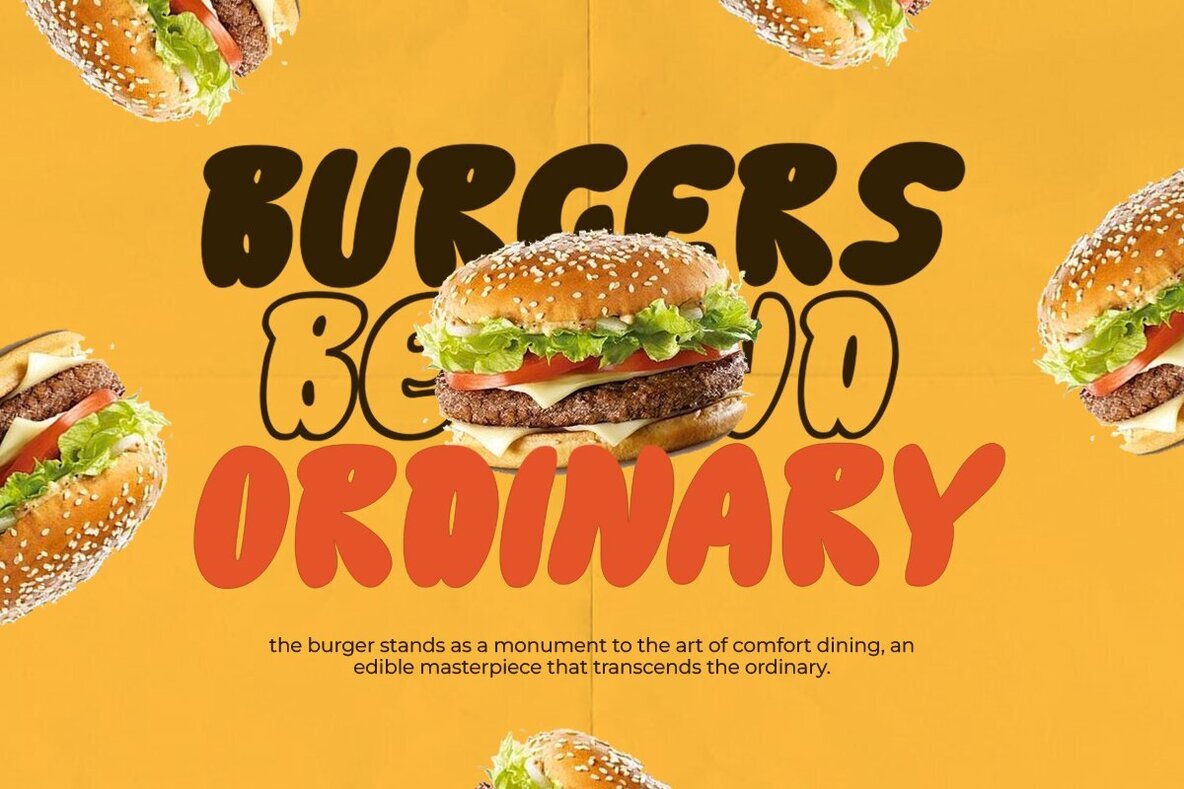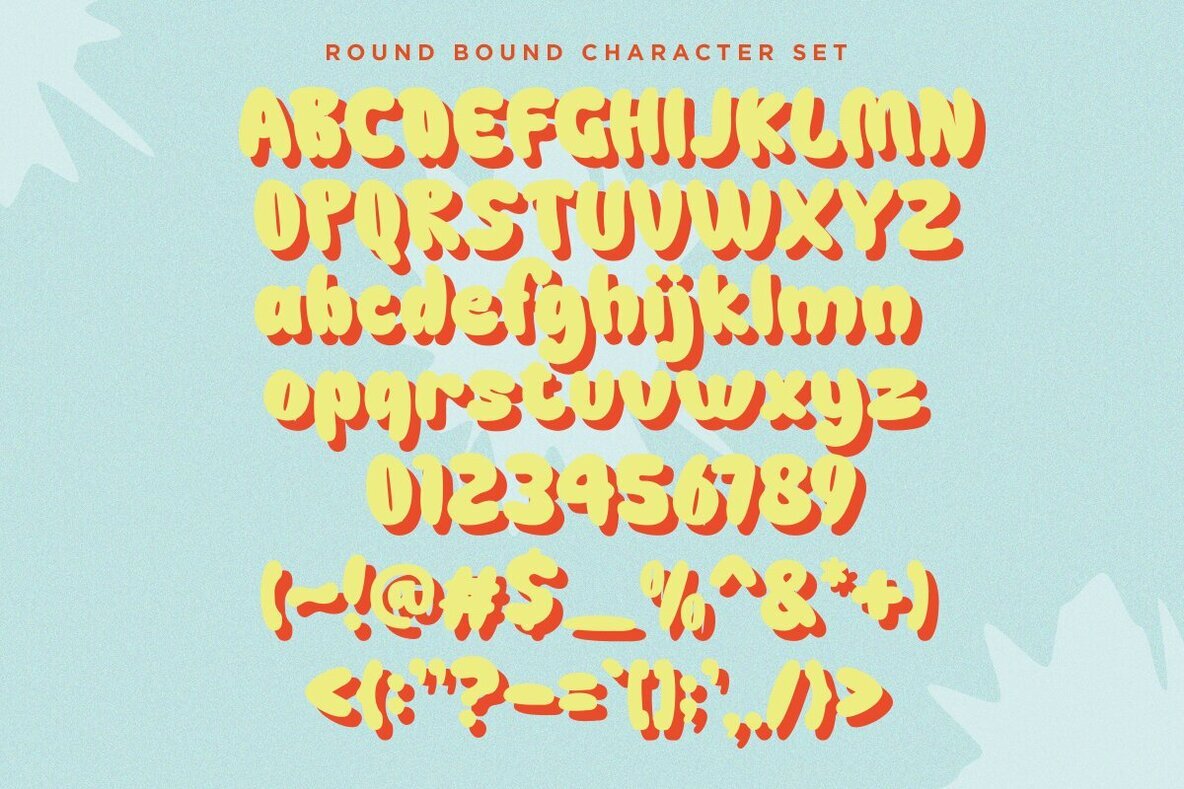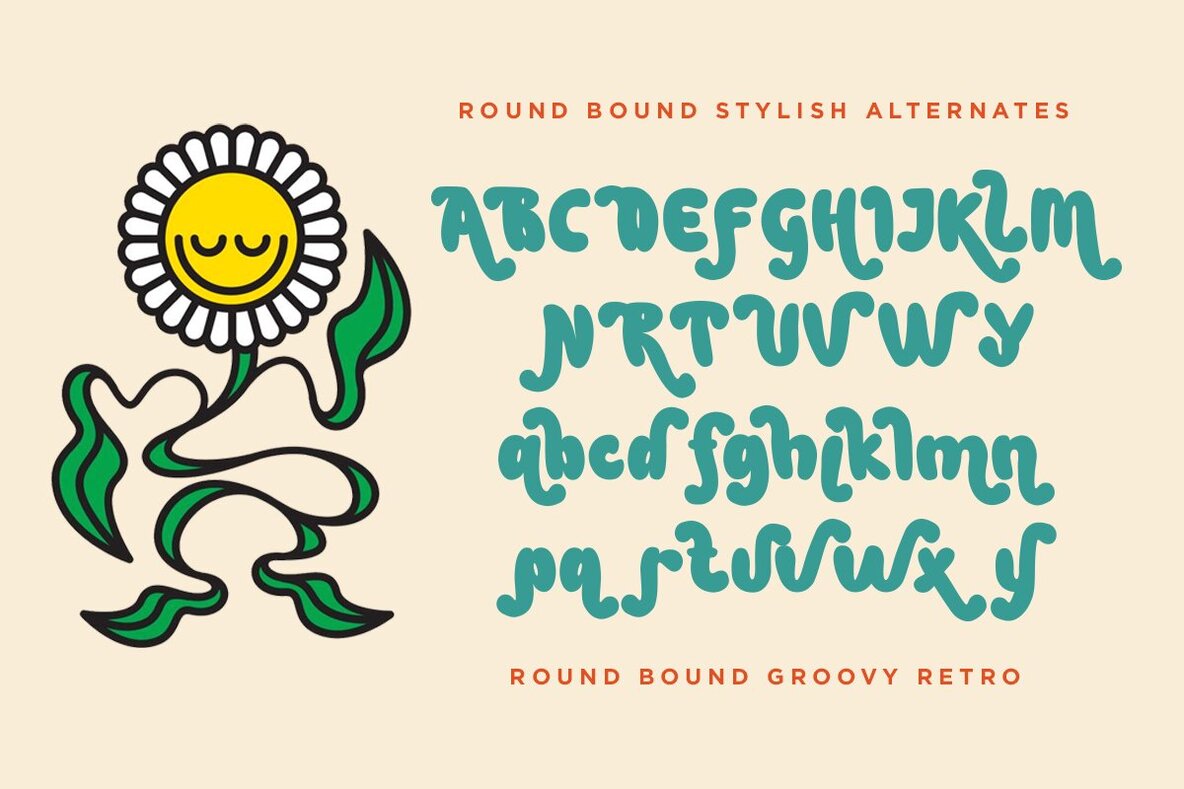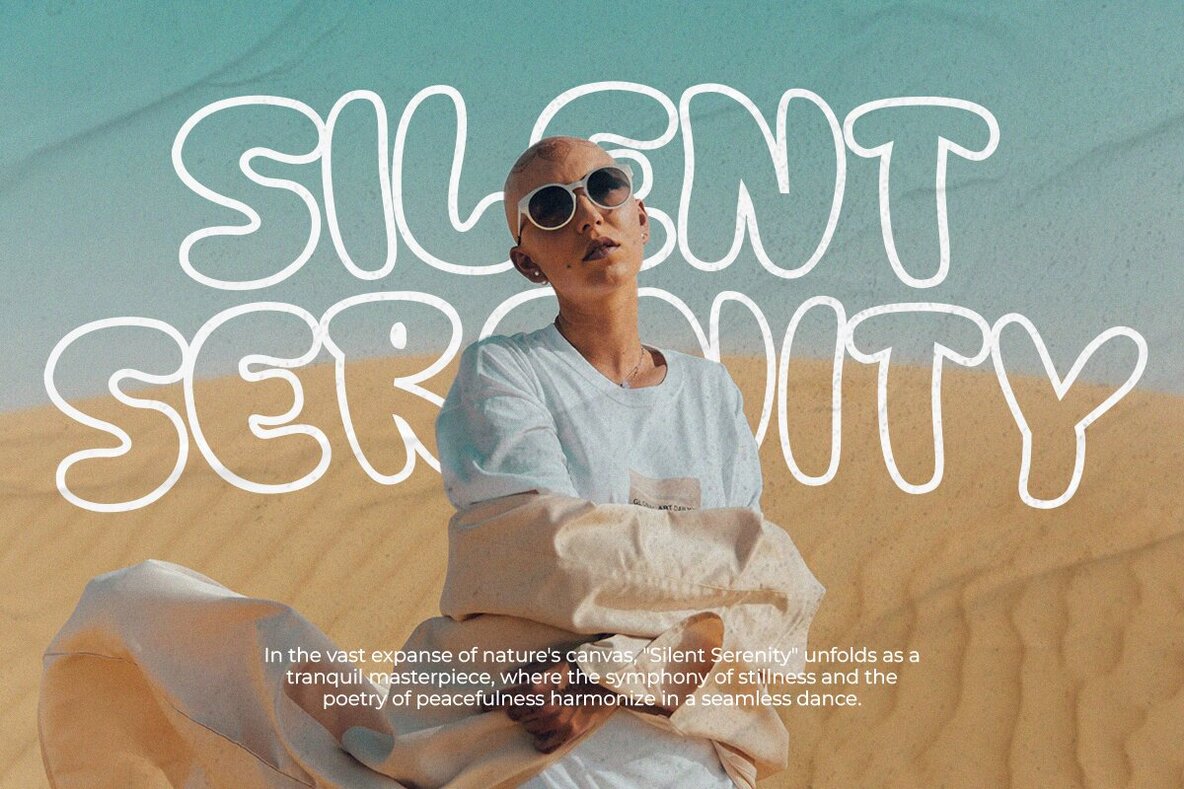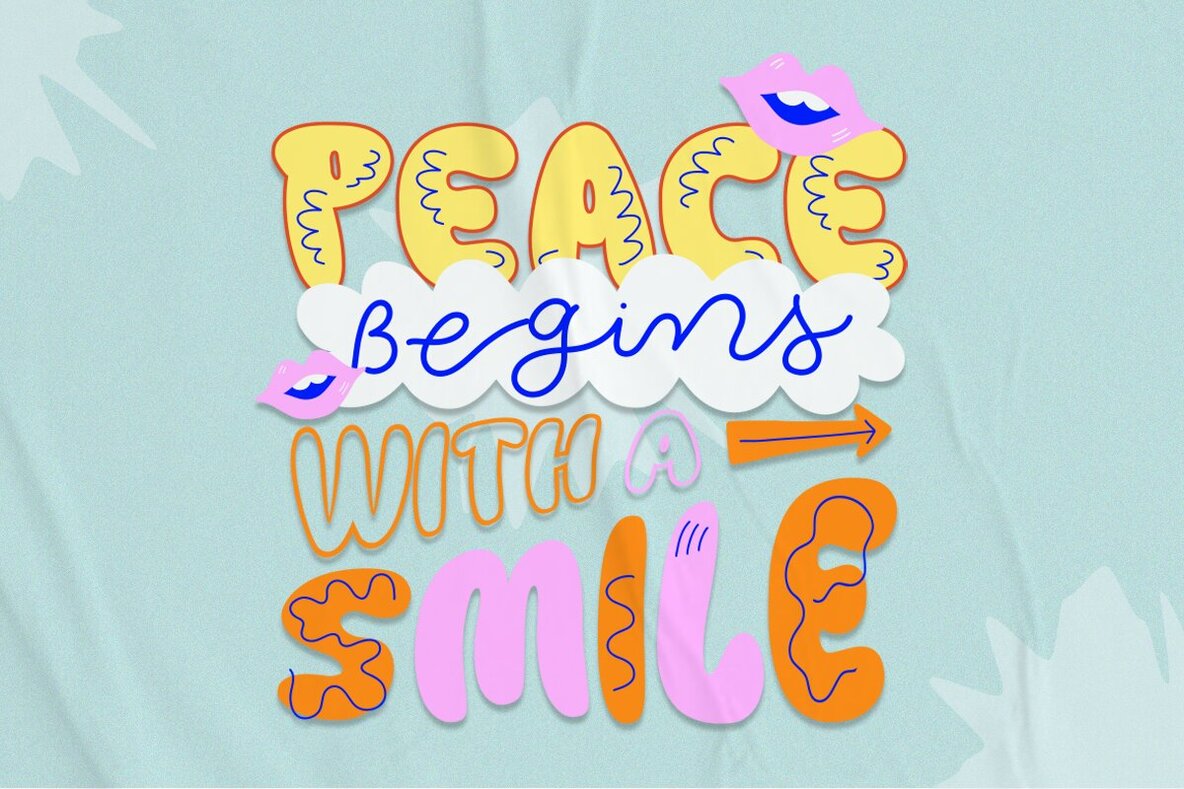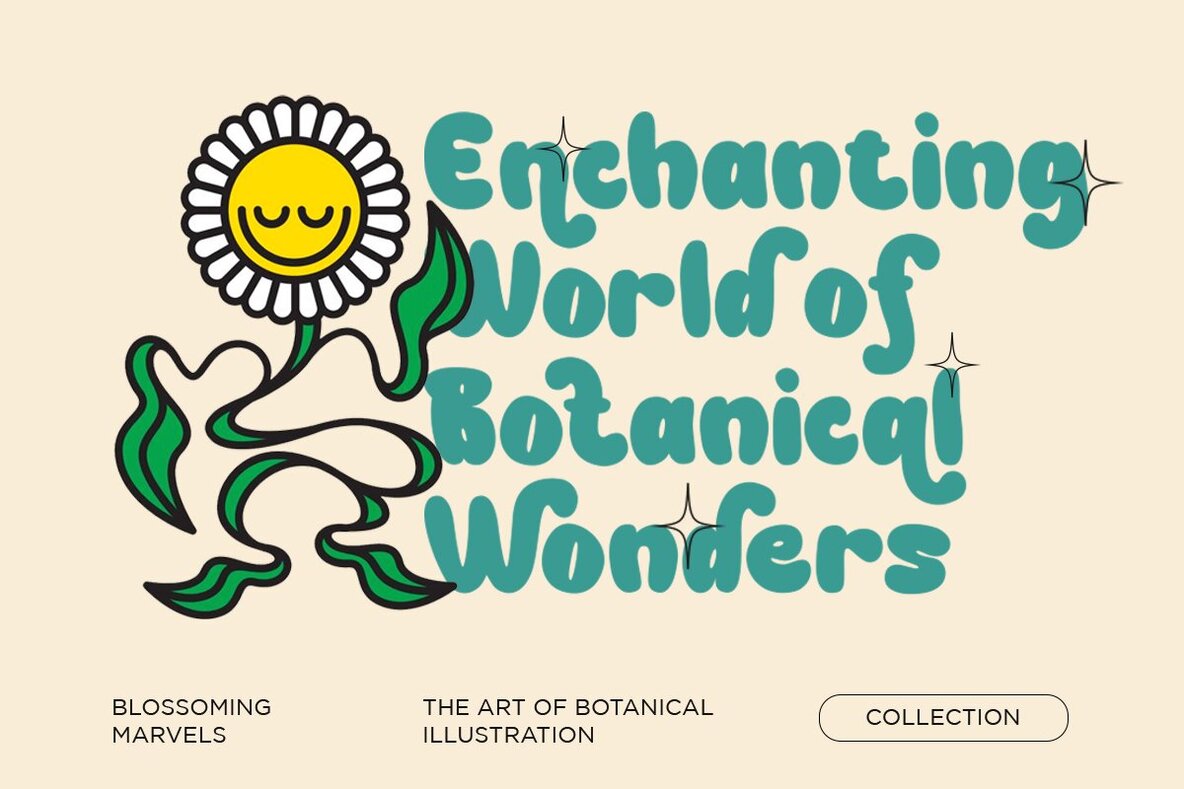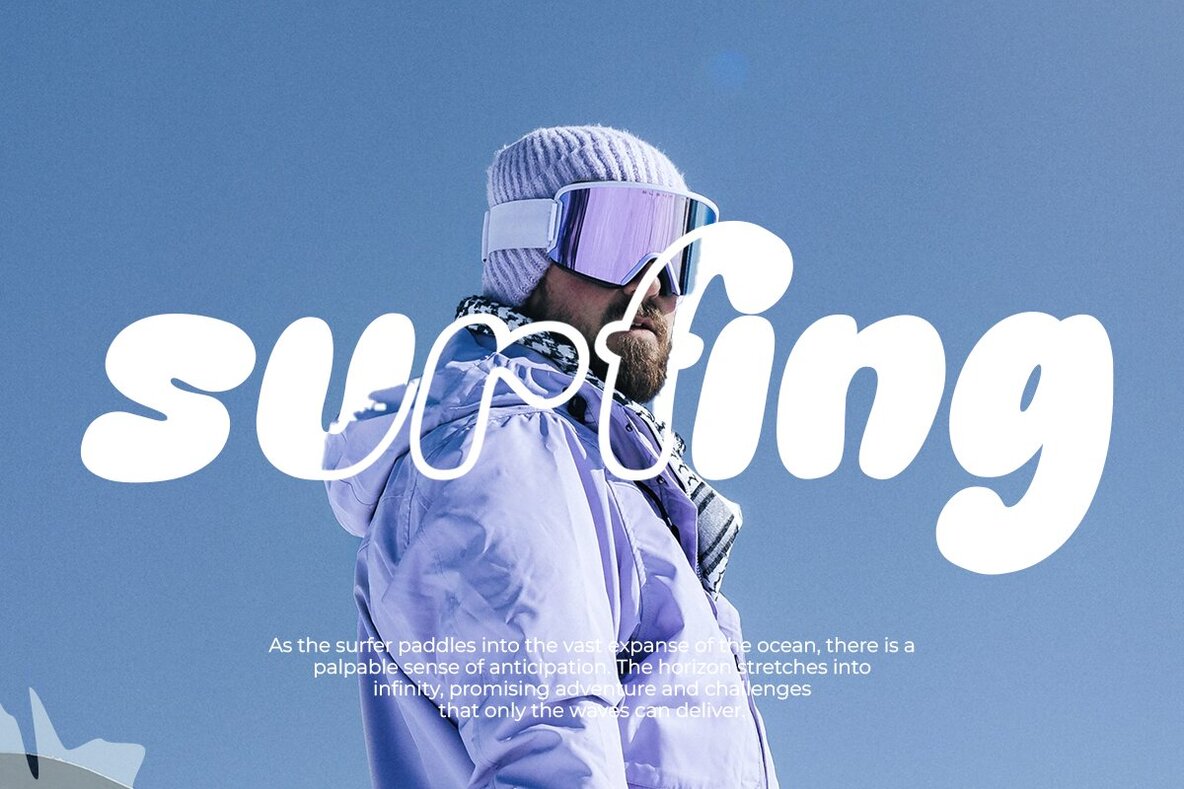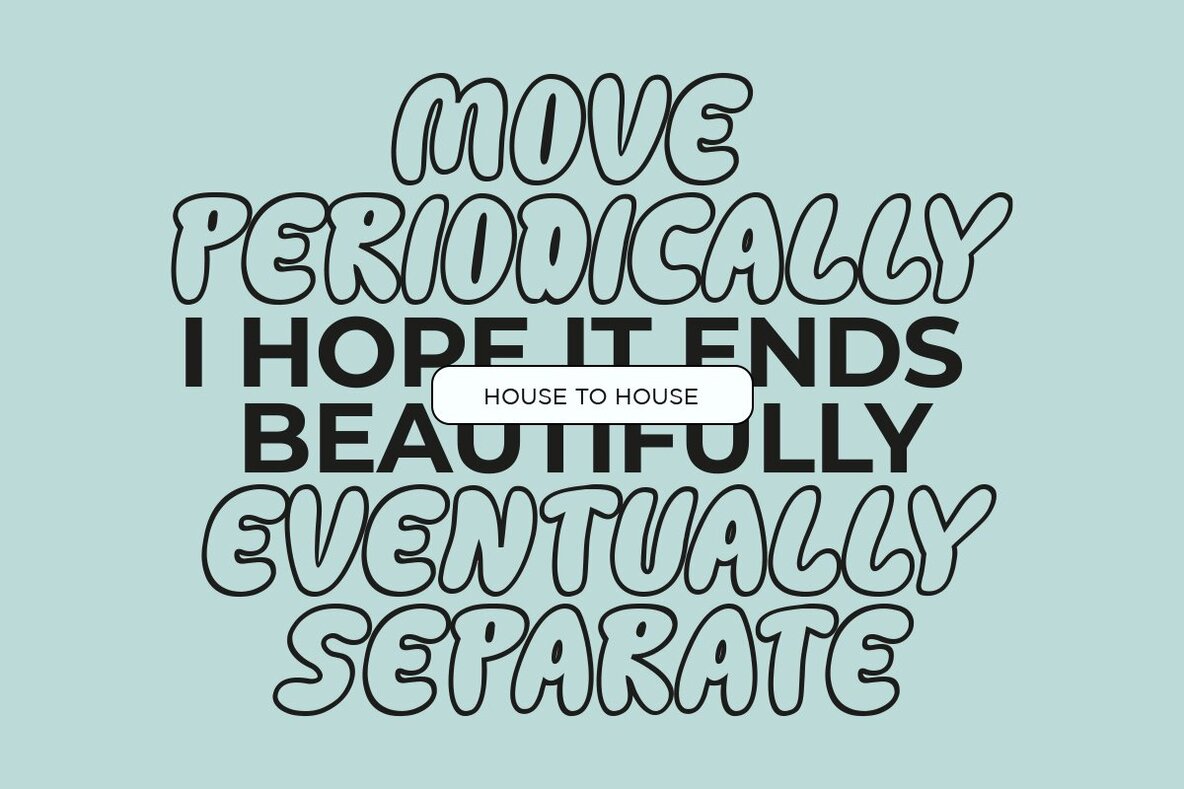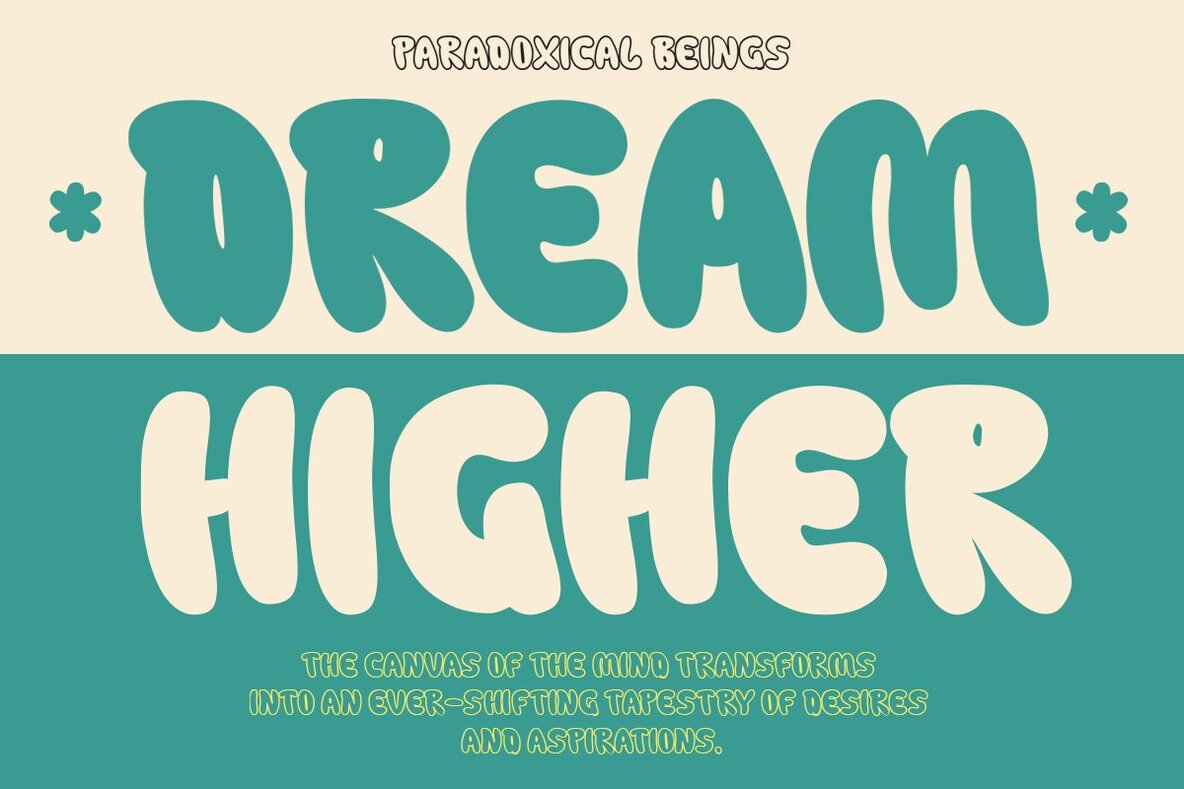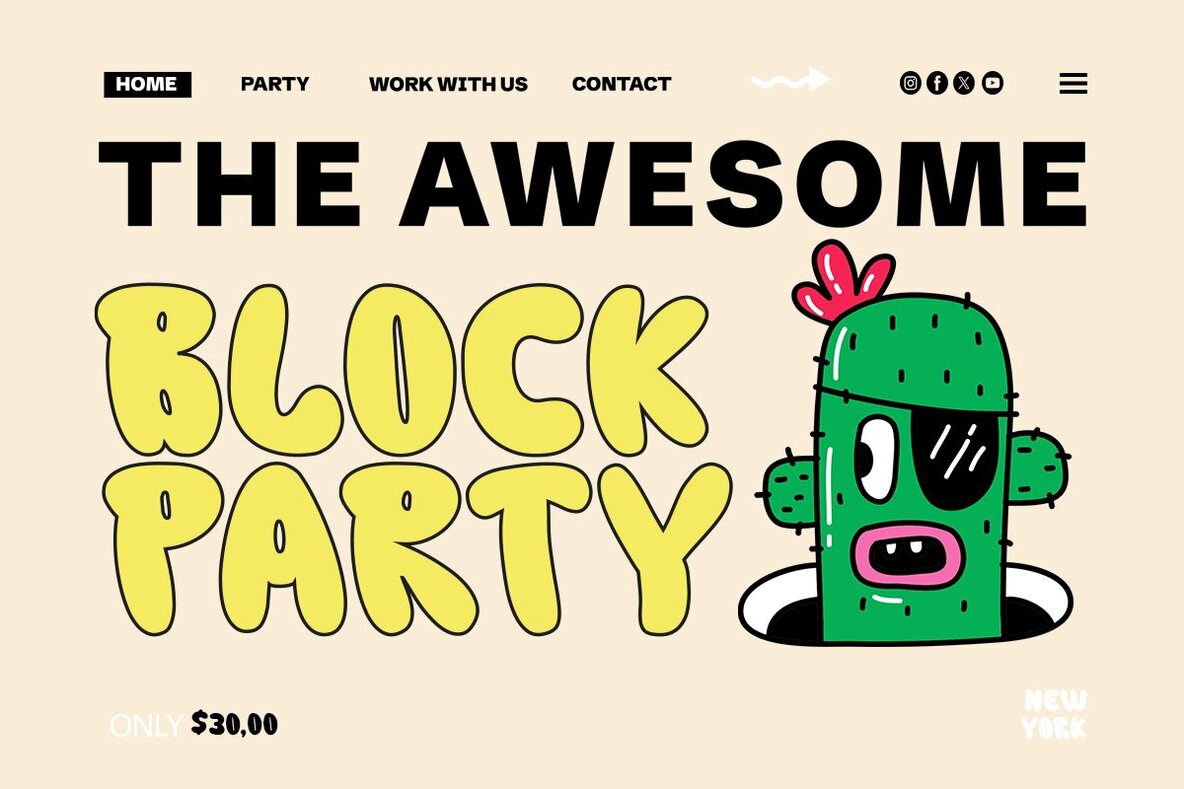
Round Bound Font
Round Bound is a retro groovy display font. Use this display font to add that special rounded retro touch to any design idea you can think of. Masterfully designed to become a true favorite. This font has 4 styles that can be adjusted to your wishes.Very suitable for logotype, Stickers, Packaging design, Cricut Project, headlines, brand identity, t shirt or apparel industry, posters,magazines, books, YouTube, Instagram, websites, quotes, invitations, greeting cards and so much more.